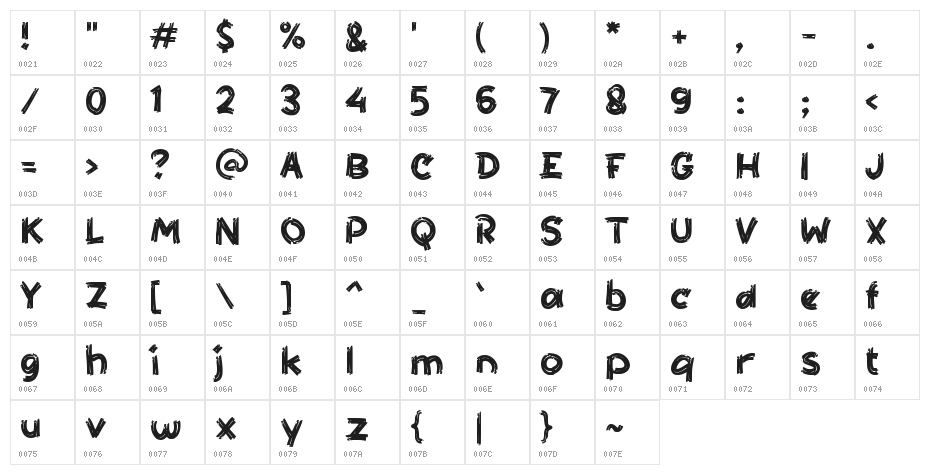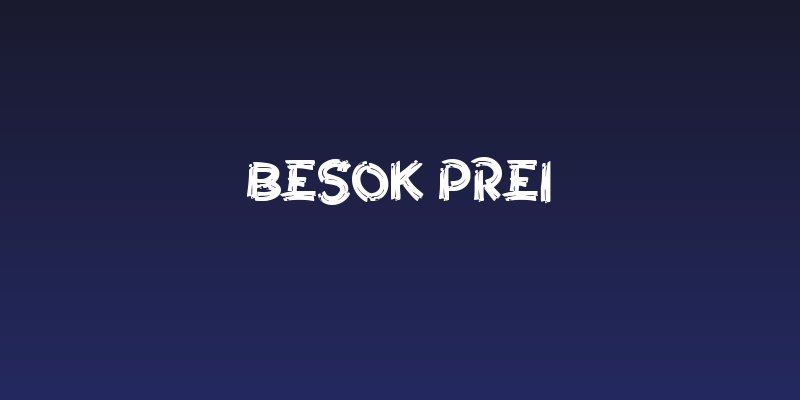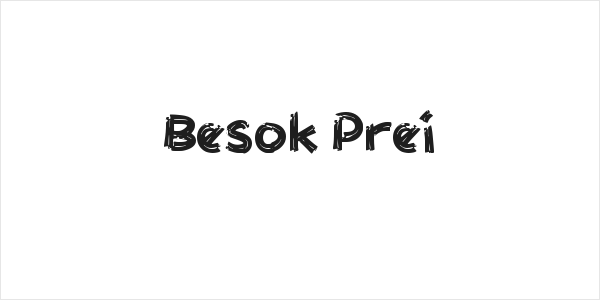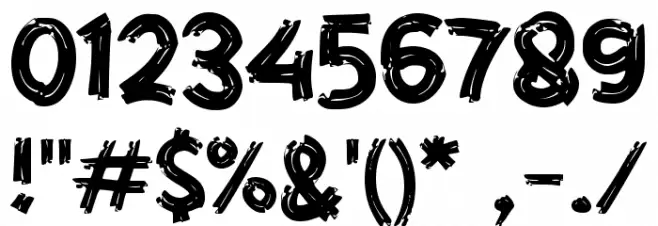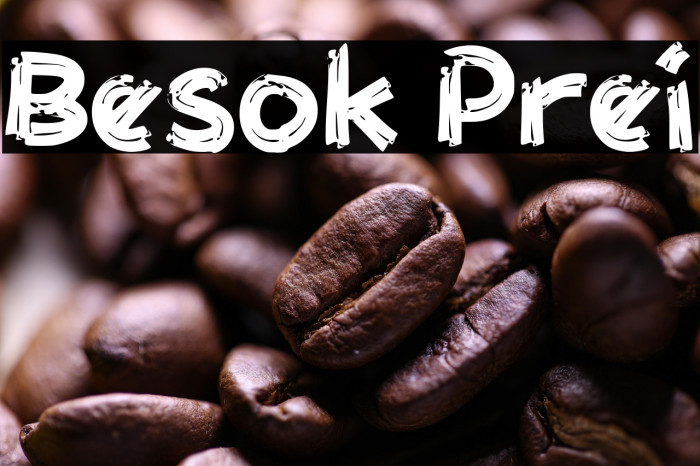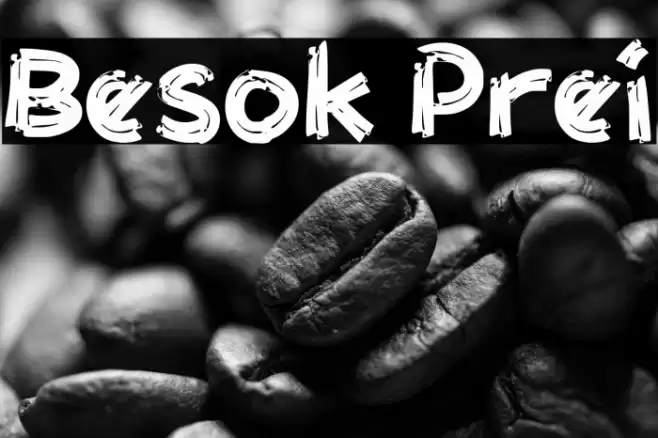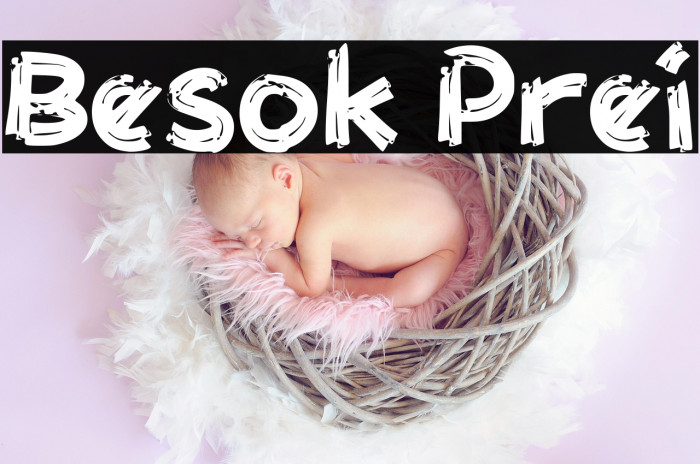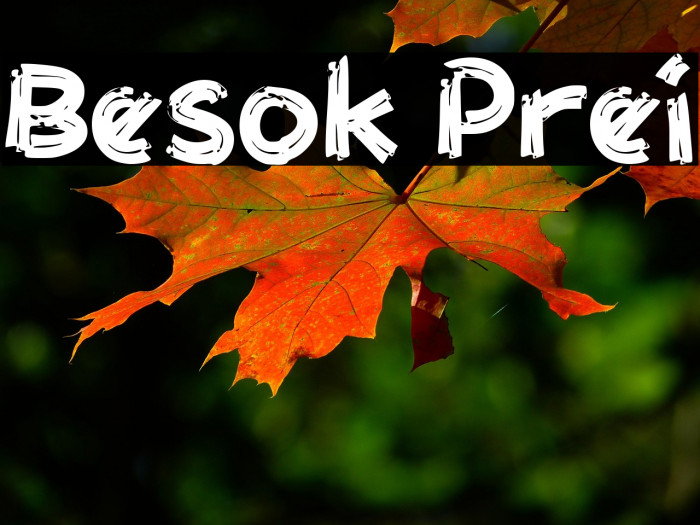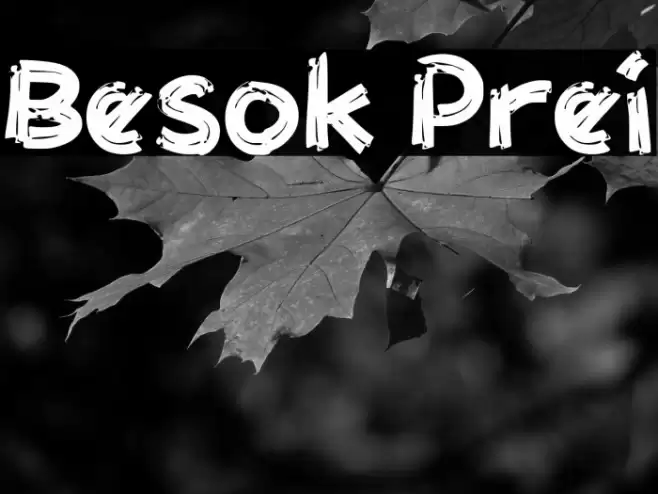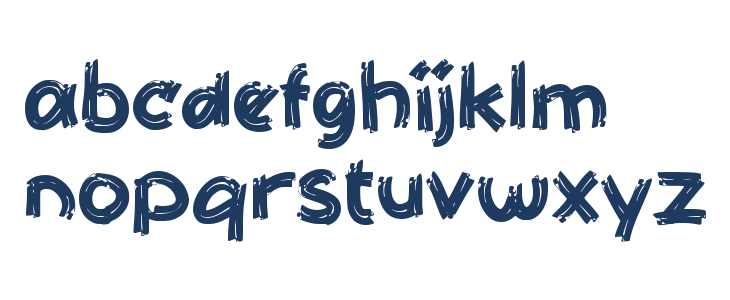
Besok Prei Font
Besok Prei Description
This font features a bold, hand-drawn style with a playful and energetic appearance. The characters are irregular and dynamic, giving a sense of movement and spontaneity. The strokes are thick and uneven, creating a textured look that adds depth and character. This font is highly decorative, with a unique flair that makes it stand out. The uppercase and lowercase letters maintain a consistent style, while the numbers and special characters complement the overall design. The font's artistic quality makes it suitable for creative and informal projects.
| Overall Style | Playful, Artistic, Energetic |
| Proposed Projects | Ideal for posters, children's books, comic strips, and creative branding projects. |